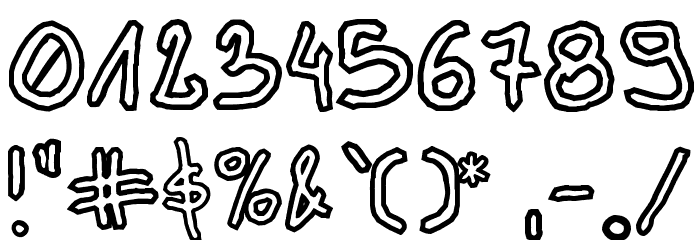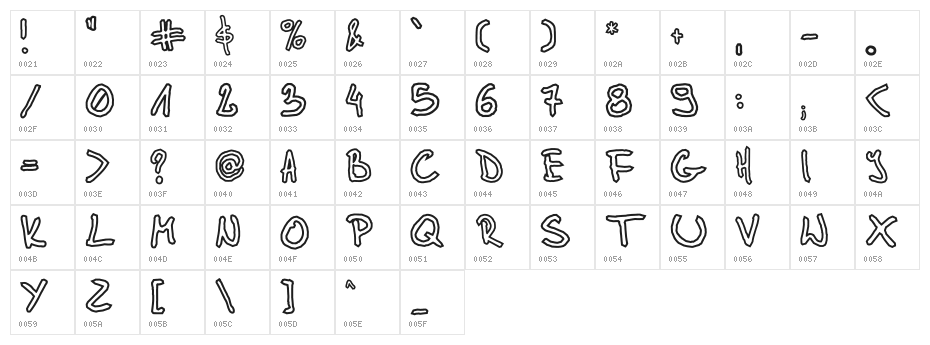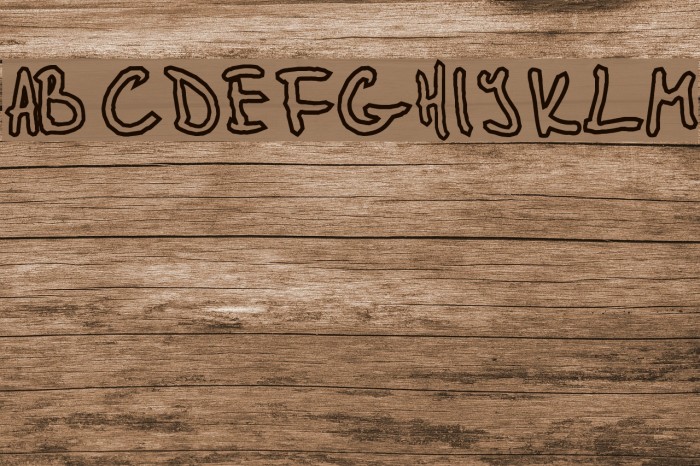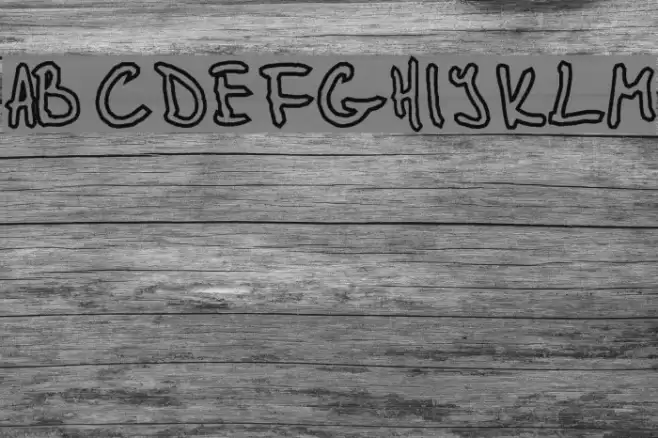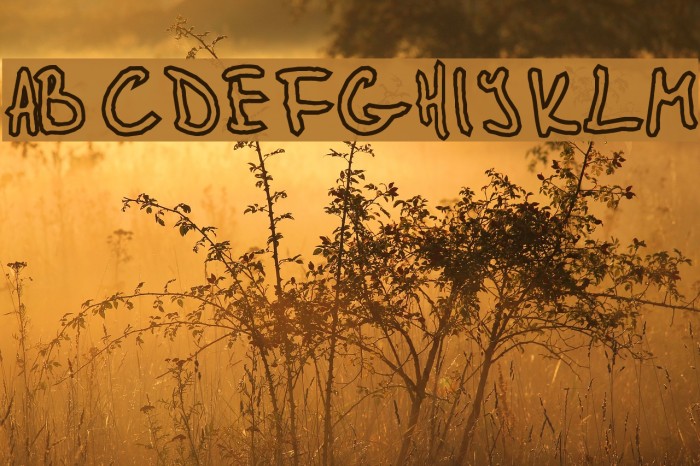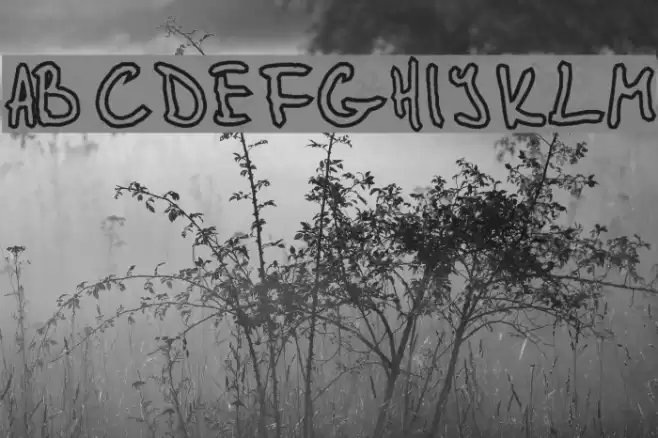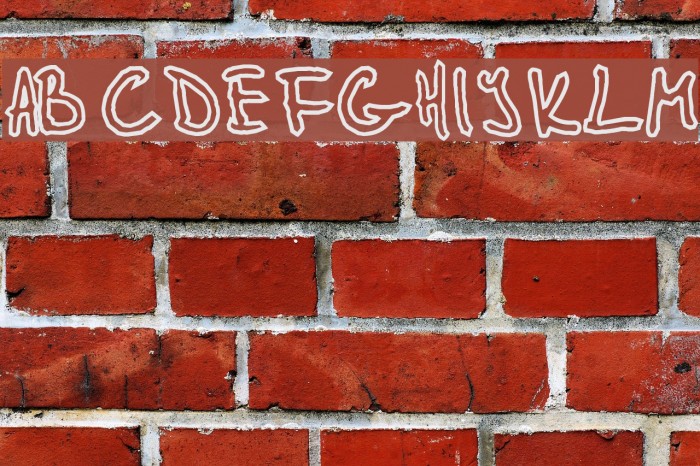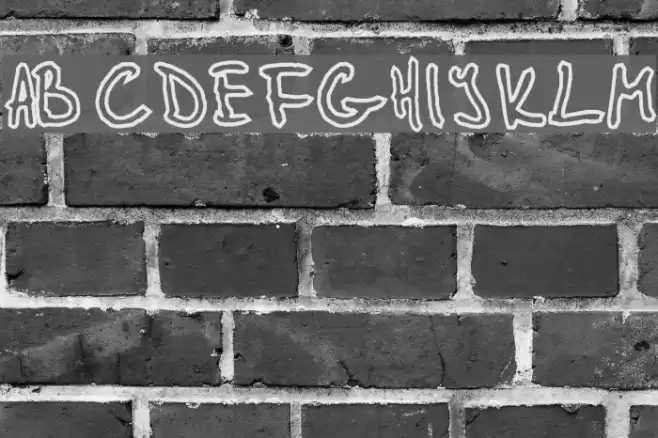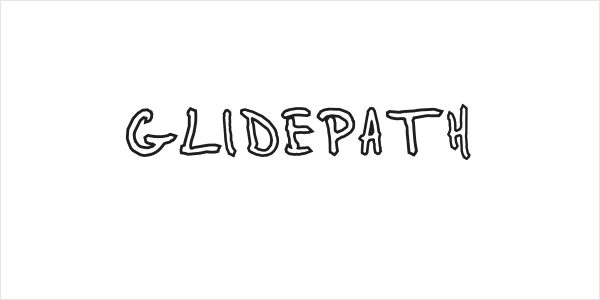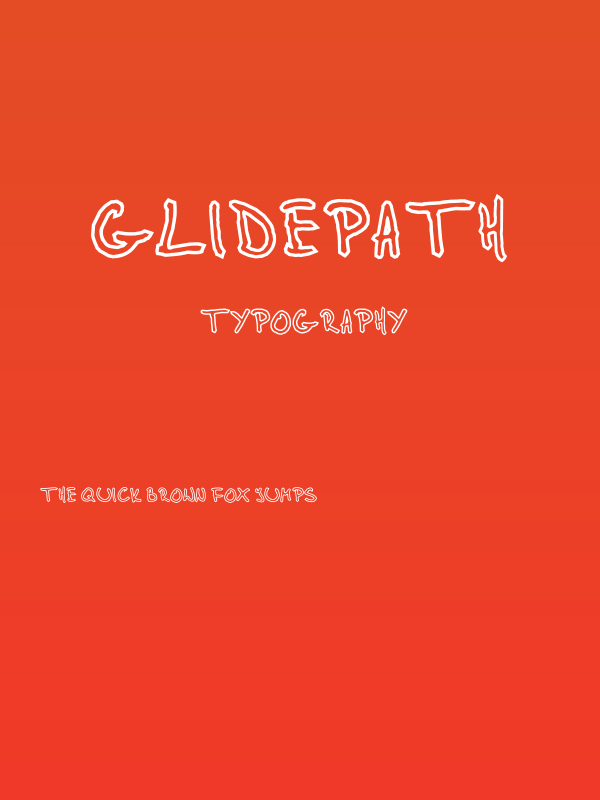
Glidepath Font
Glidepath Description
This font features a playful, hand-drawn style with bold, uneven strokes that give it a casual and informal appearance. The characters are outlined with a thick, black line, creating a cartoonish effect that is both eye-catching and whimsical. The uppercase and lowercase letters maintain a consistent style, with rounded edges and a slightly irregular form that adds to the font's charm. The numbers and special characters follow the same design principles, ensuring a cohesive look across all elements. This font is ideal for projects that require a fun and approachable aesthetic.
| Proposed Projects | Perfect for children's books, comic strips, playful branding, and casual invitations. |